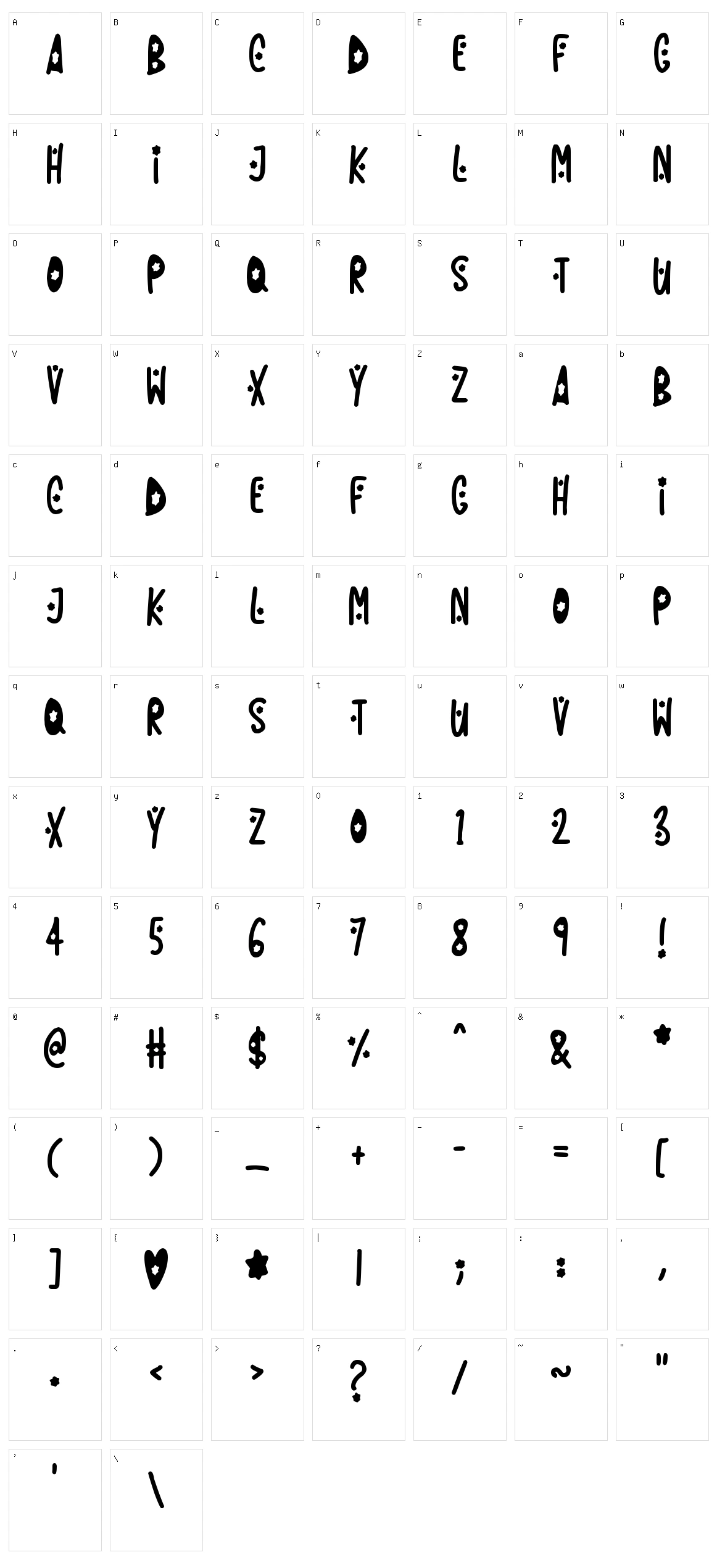
The free font Fireworks Kid is carefully designed by Hawtpixel, showcasing a thoughtful balance of creativity and usability and falls under the Cartoon font style. When you download the ZIP file, it contains only 70.58 KB of font files, making it lightweight and quick to download. Please review the license details below to understand permitted usage and distribution rights. If license information is not available, we recommend using this font for personal projects only or contacting the author directly for commercial usage permissions.